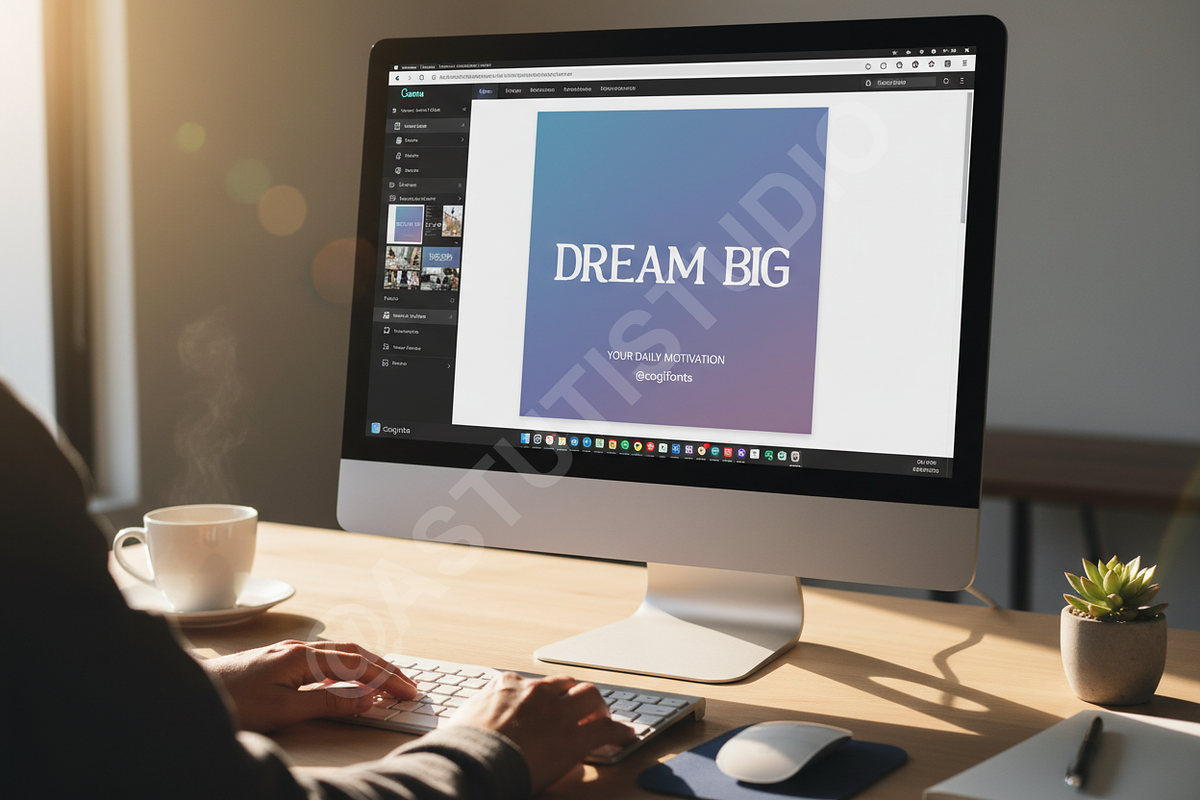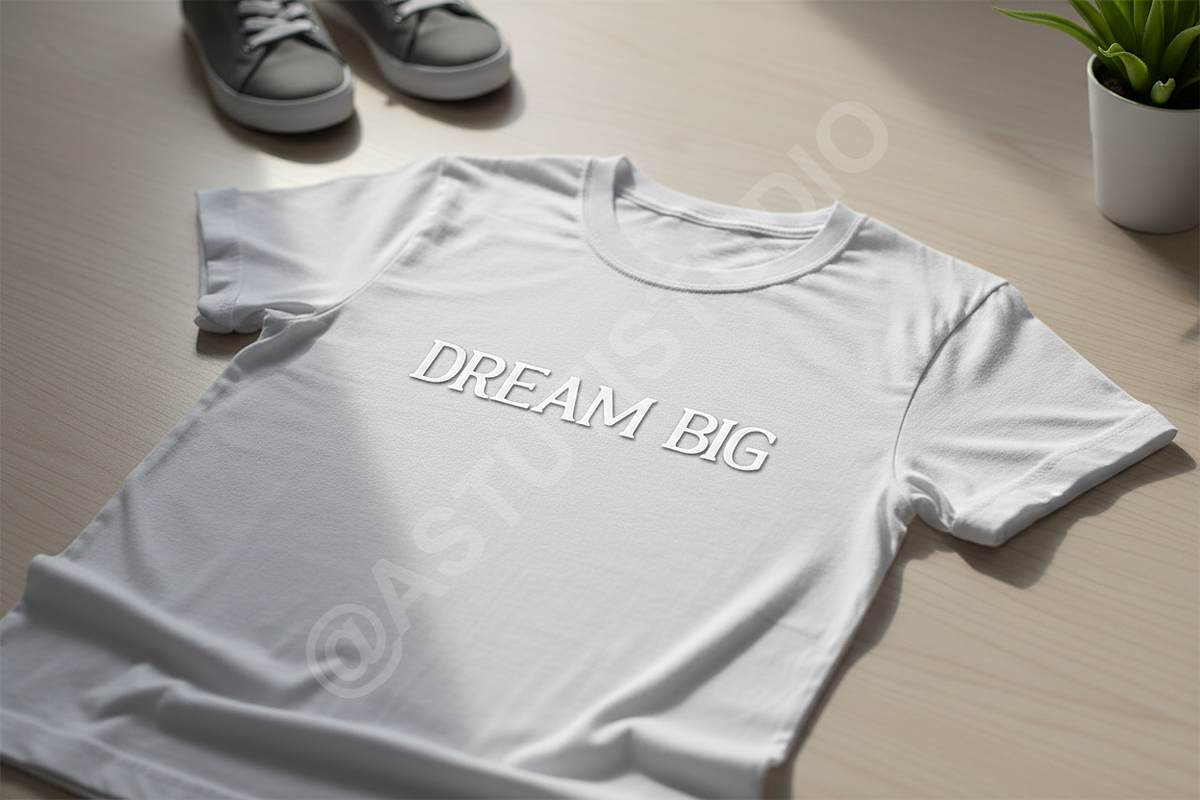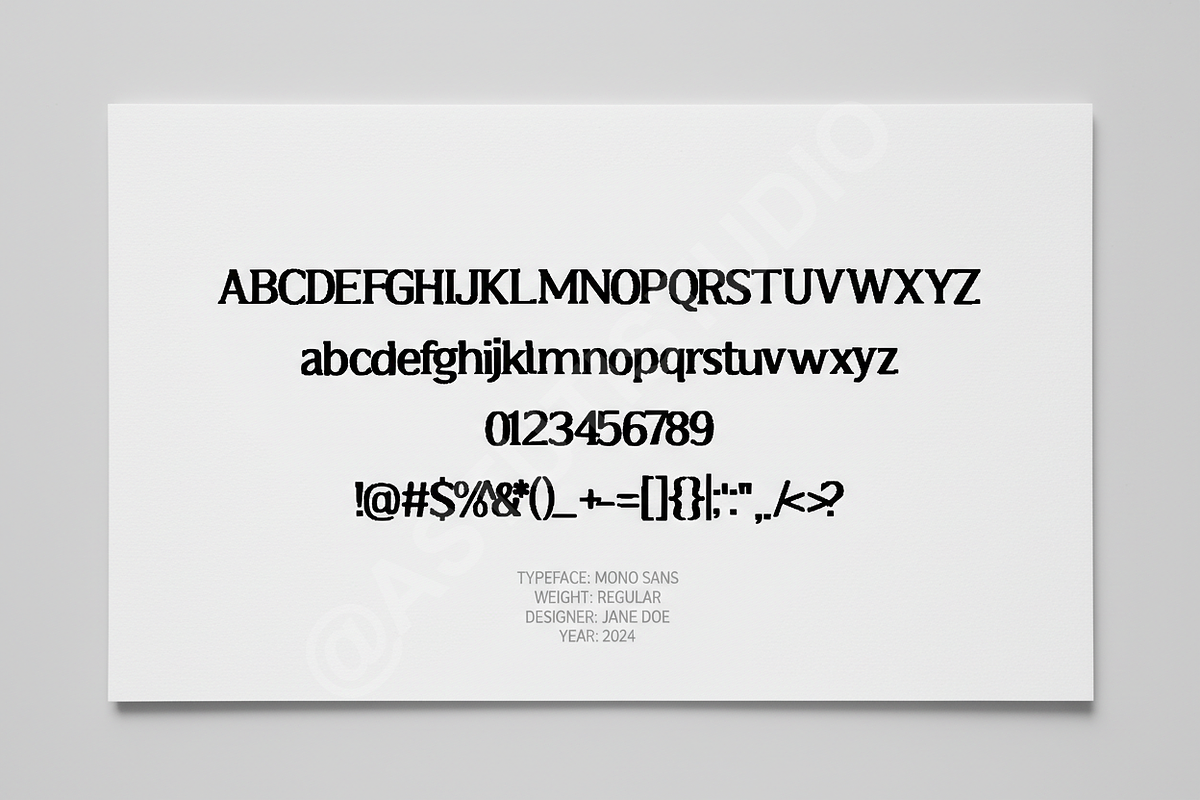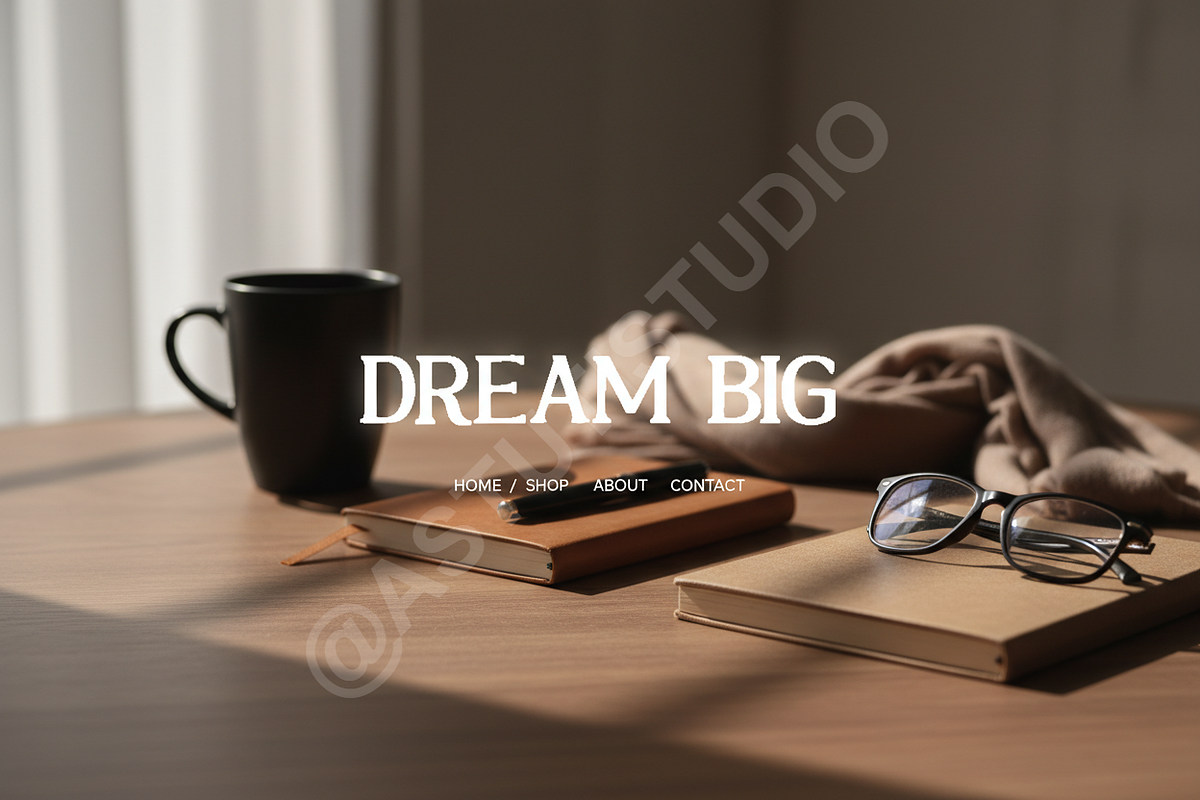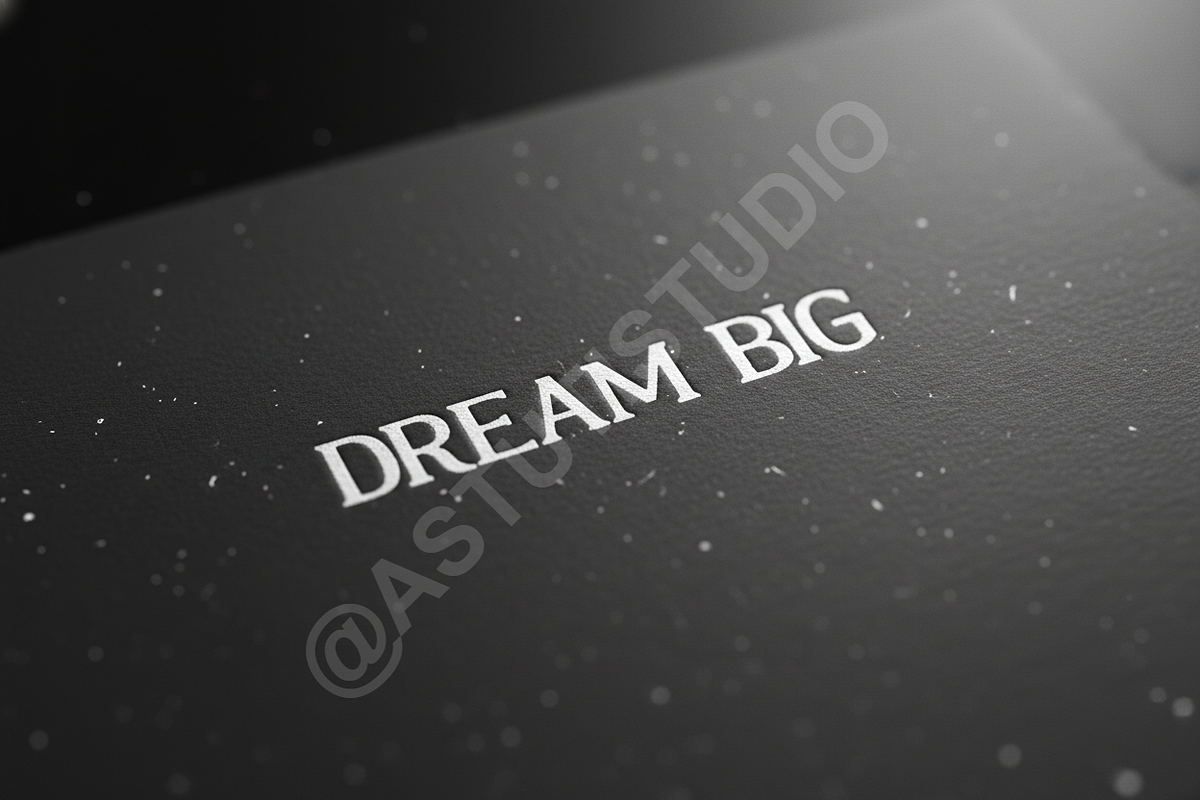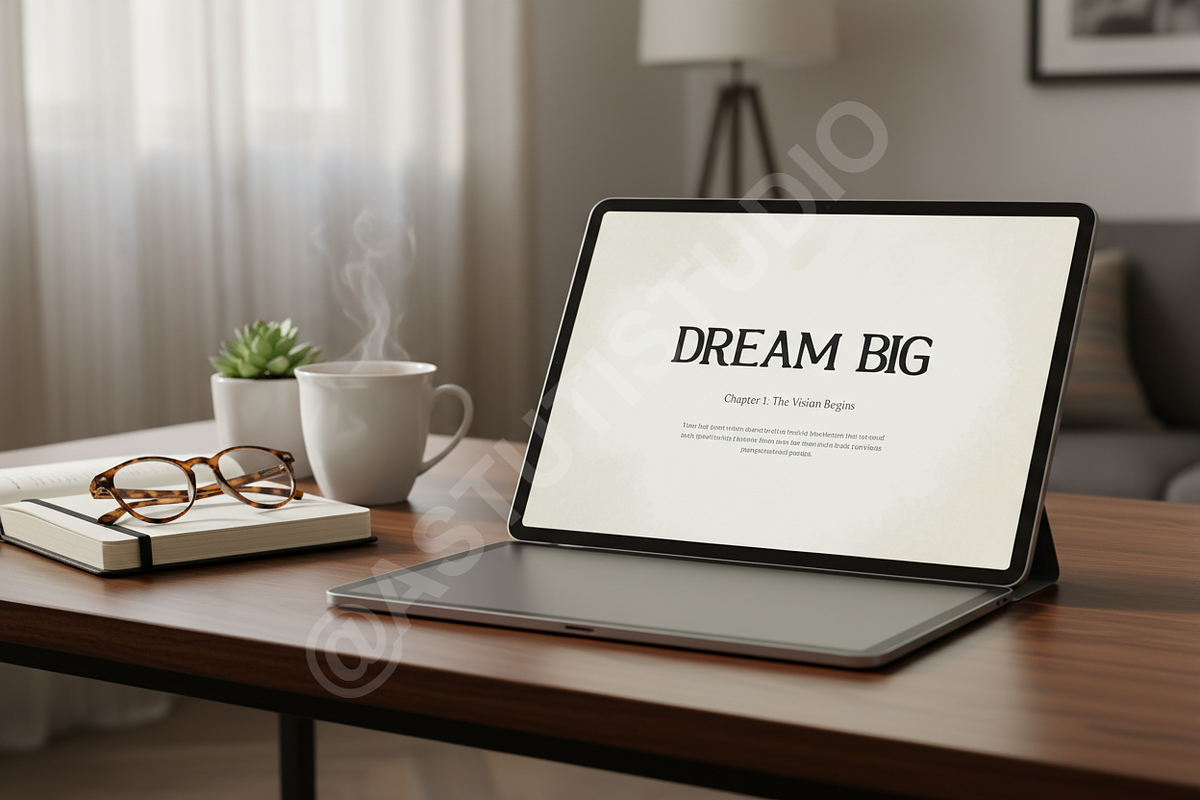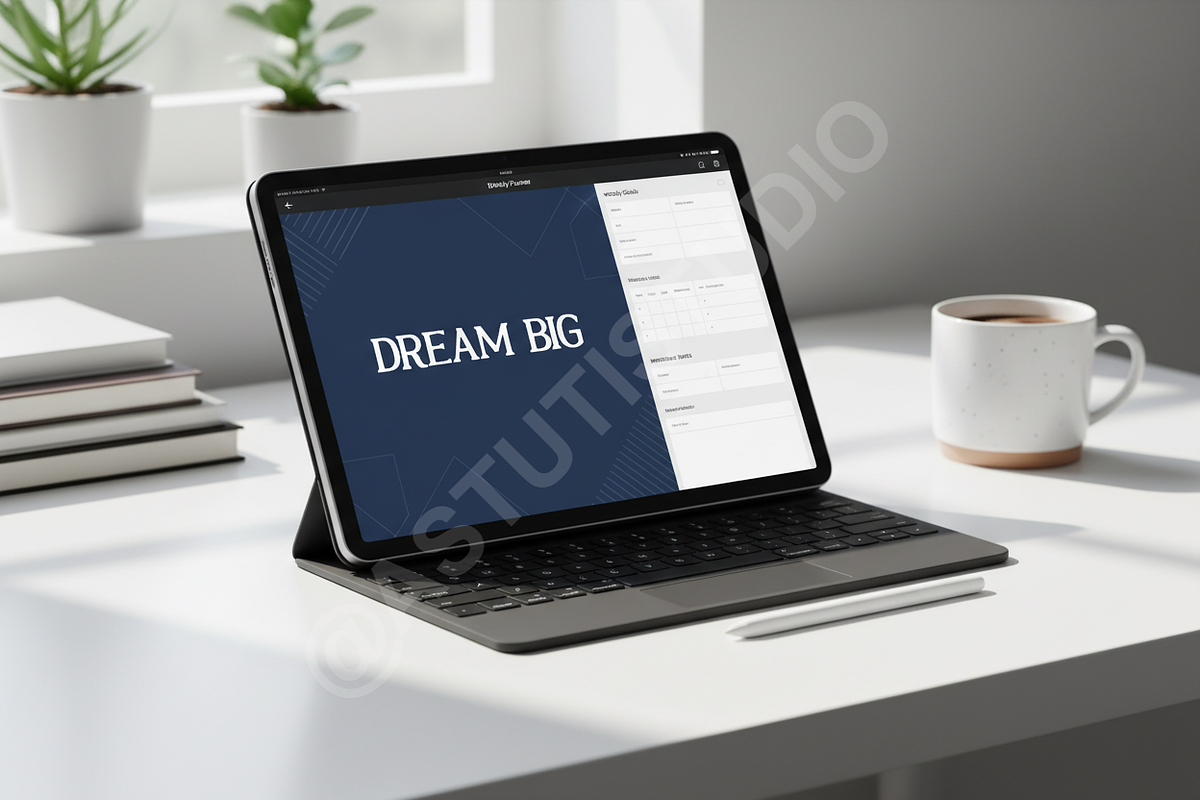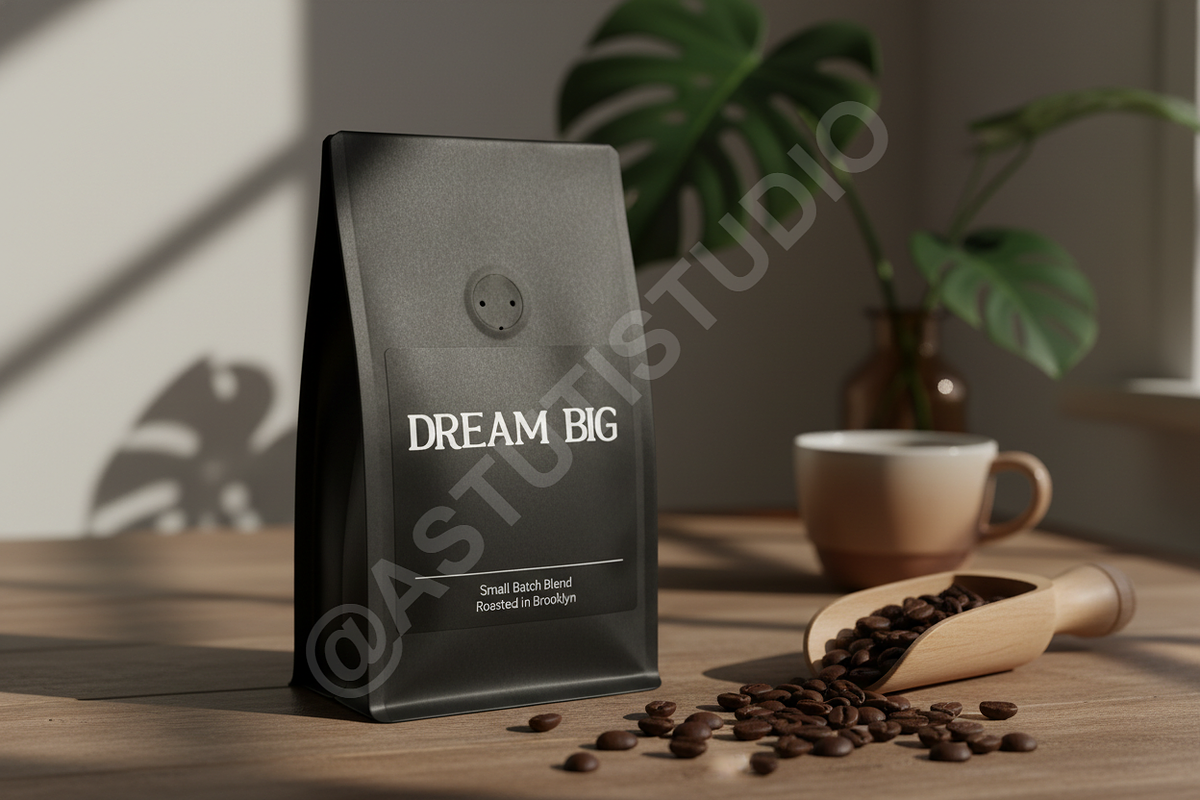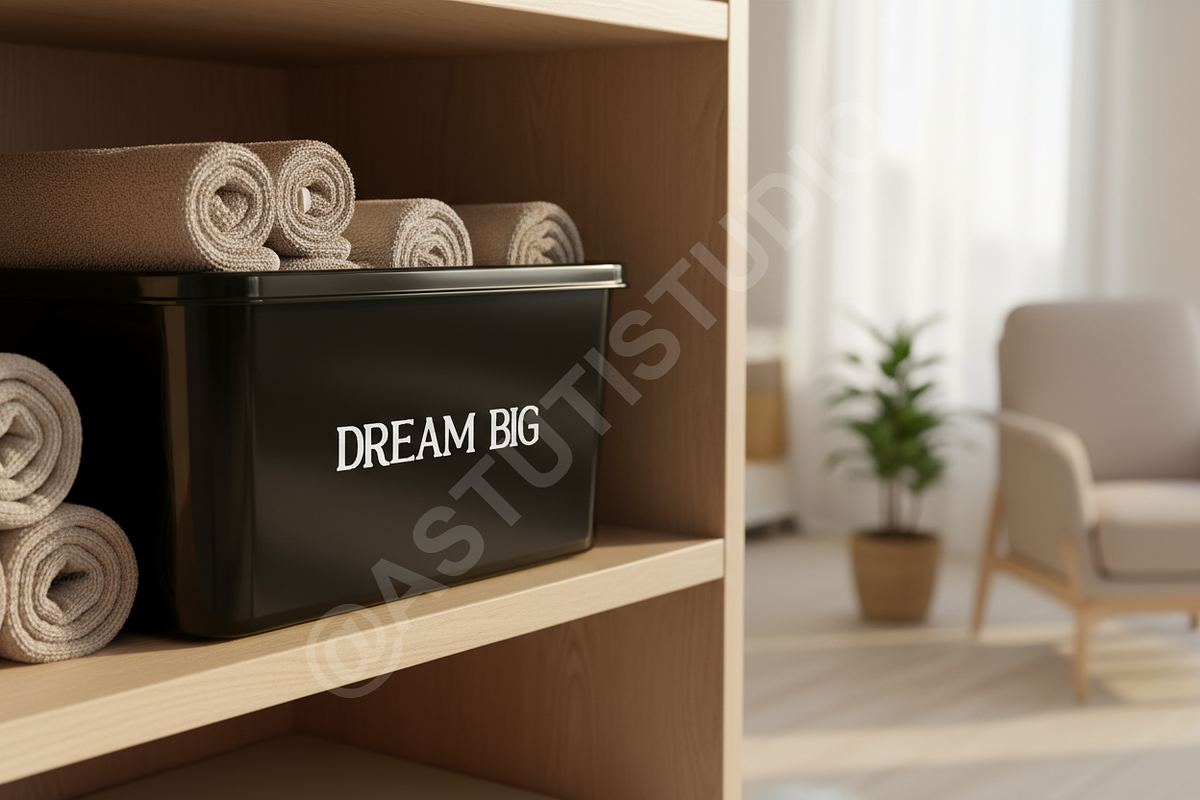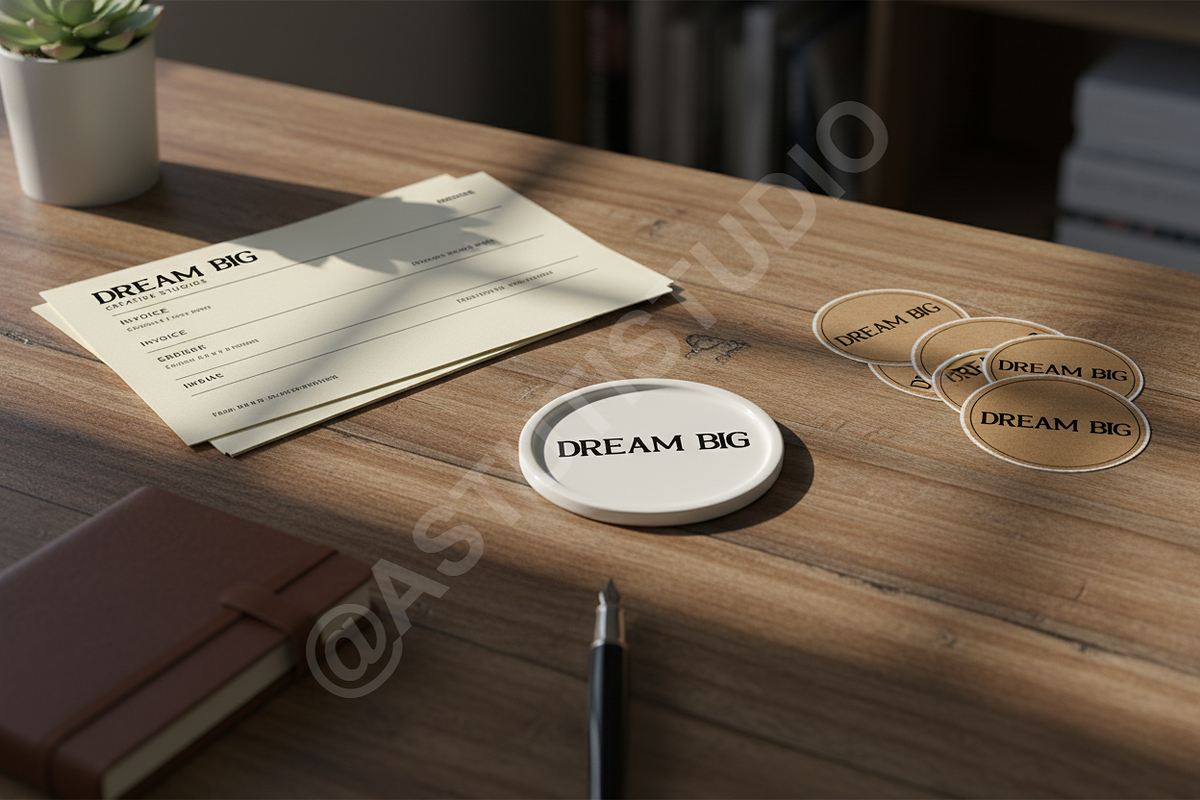
Cogi Typeface: Elegant Luxury Serif
COGI TYPEFACE: The Essence of Refined Modernism
Cogi is a sophisticated serif typeface designed for the discerning creative who demands elegance and clarity. It strikes a perfect balance between timeless editorial grace and modern architectural precision. With its confident lines, subtle serifs, and exceptional readability, Cogi elevates any project—from high-fashion lookbooks and exclusive brand identities to captivating social media narratives. It is the definitive choice for projects where visual impact must be synonymous with quality and luxury.
FEATURES THAT DEFINE COGI:
- Luxury Aesthetic: Optimized letterforms that radiate exclusivity, perfect for premium packaging and high-end branding.
- Extensive Language Support: Includes full coverage for over 100 Latin-based languages, ensuring global versatility.
- Multiple Weights & Styles: Offers Regular, Medium, and Bold weights to ensure adaptability across print and digital media.
- Complete Glyph Set: Comprehensive set of uppercase, lowercase, punctuation, and numerals for professional typesetting.
- Perfect for Editorial Design: Designed to perform beautifully both as attention-grabbing display text and in longer editorial blocks.